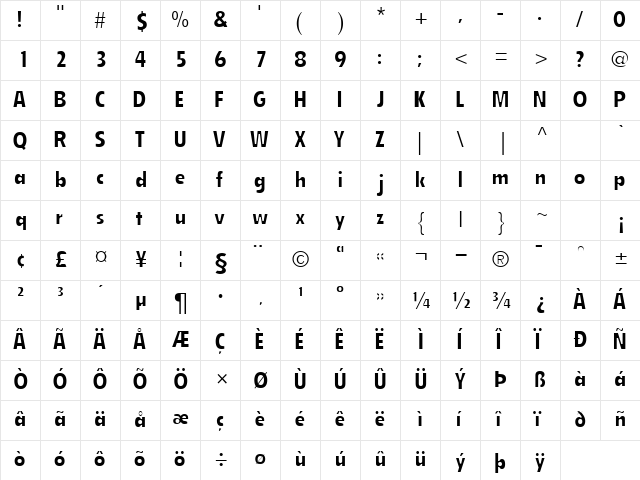
EmphasisCondSSK Regular Font Preview
EmphasisCondSSK Regular
Design Context for EmphasisCondSSK Typeface
EmphasisCondSSK is a composed and adaptable typeface that performs quietly and consistently across a wide range of design contexts. Its narrow stance lets it pack a punch even in space-constrained designs.